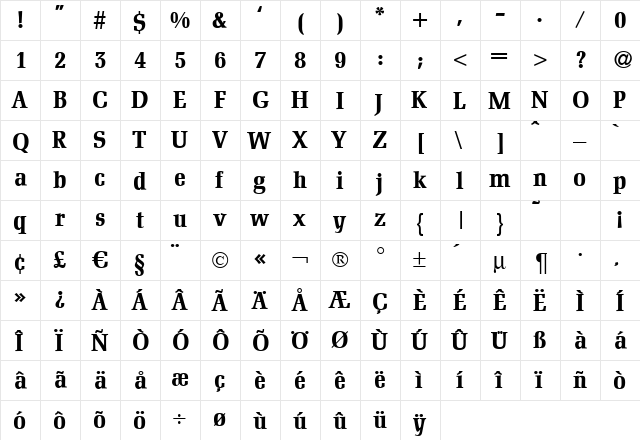
D790-Roman Bold
Design Context for D790-Roman Typeface
D790-Roman is a composed and adaptable typeface that performs quietly and consistently across a wide range of design contexts. The heavy weight commands attention and anchors typographic hierarchies.